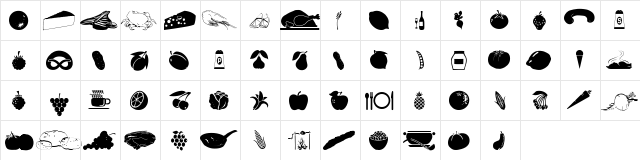
FoodnDrinksOne Regular
Design Context for FoodnDrinksOne Typeface
FoodnDrinksOne is a composed and adaptable typeface that performs quietly and consistently across a wide range of design contexts.